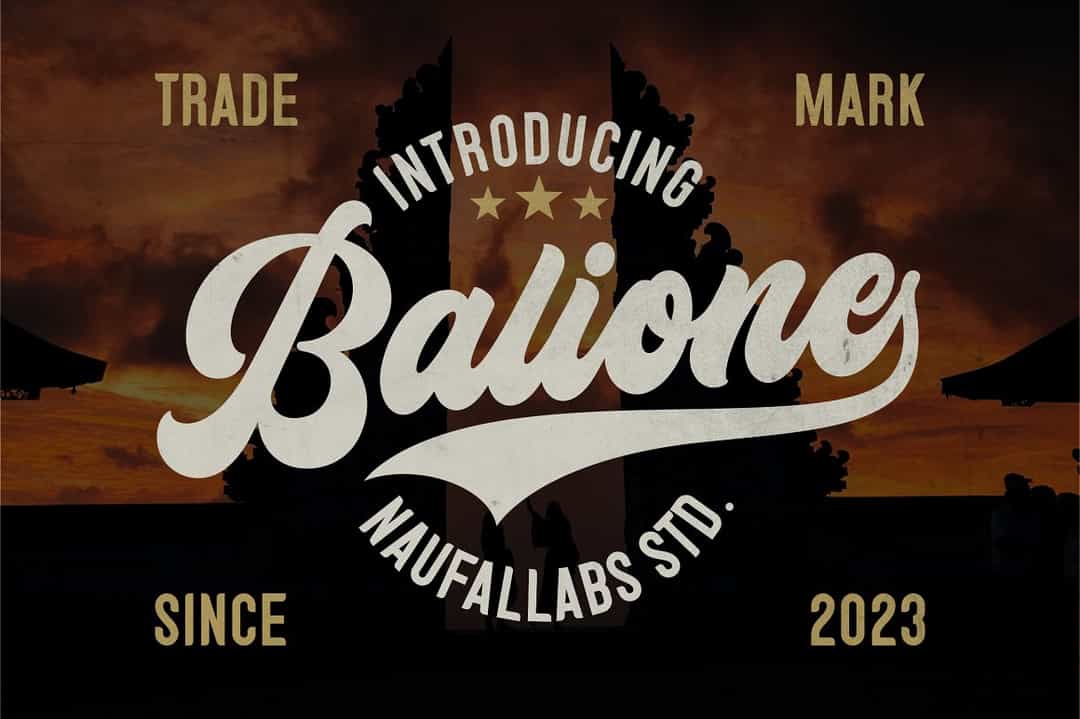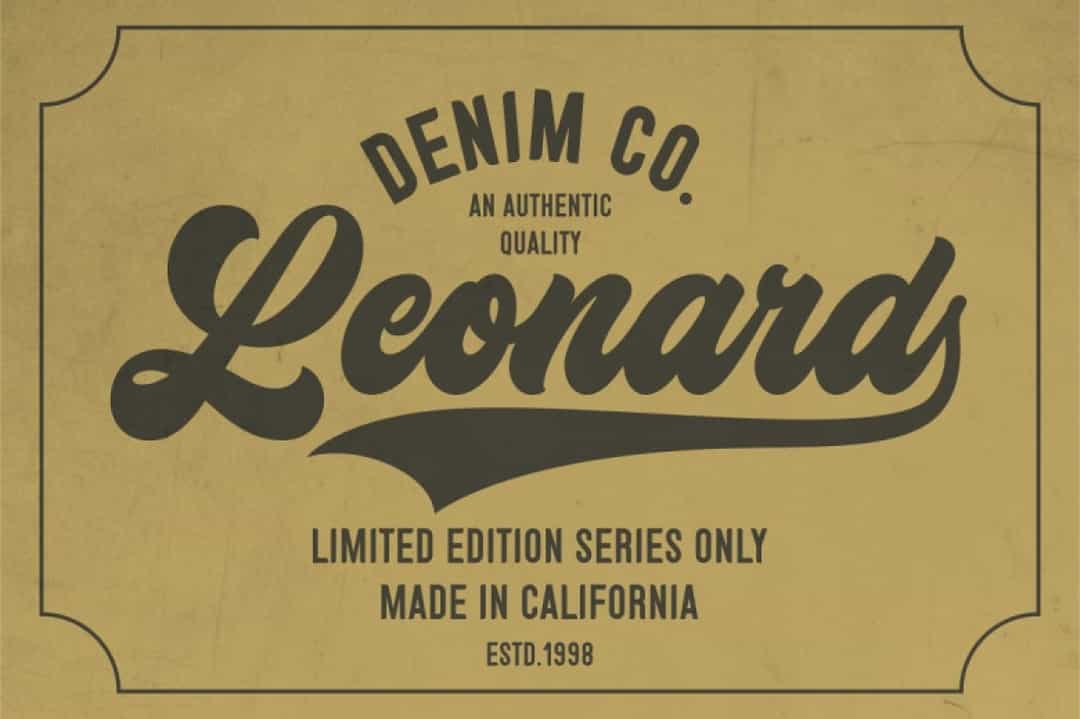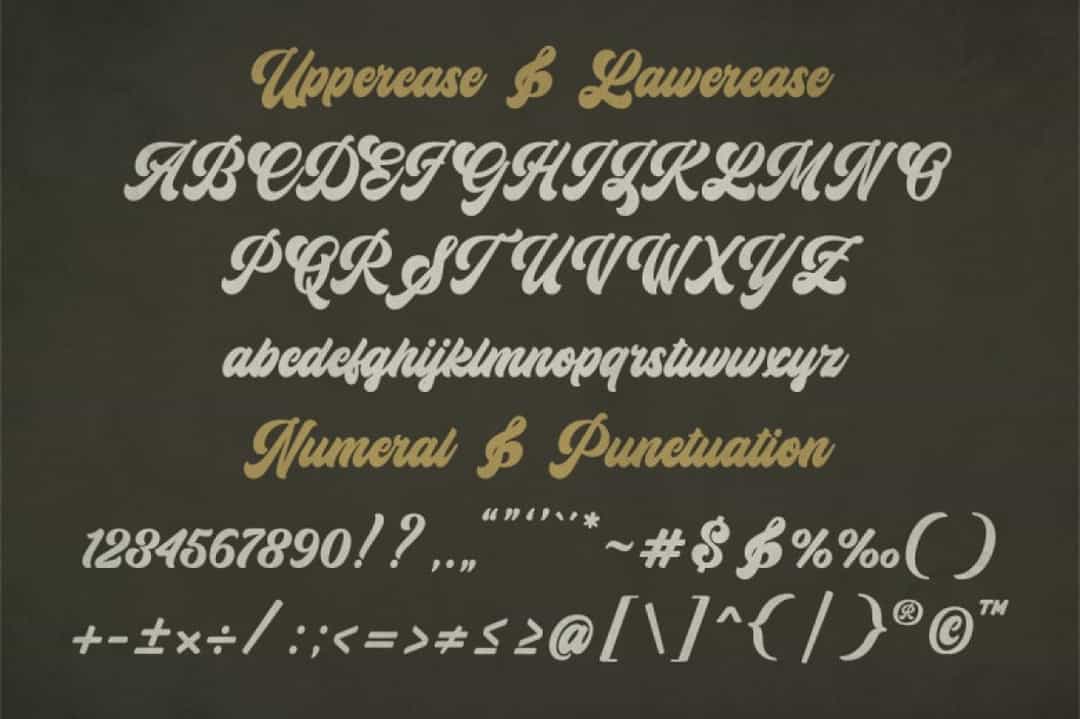
Balidone is an elegant script font with a vintage aesthetic that will transport you back in time with its distinctive and elegant style. Boasting classic aesthetics with vintage accents, Balidone provides the ideal opportunity for designers looking to bring nostalgia into their designs.